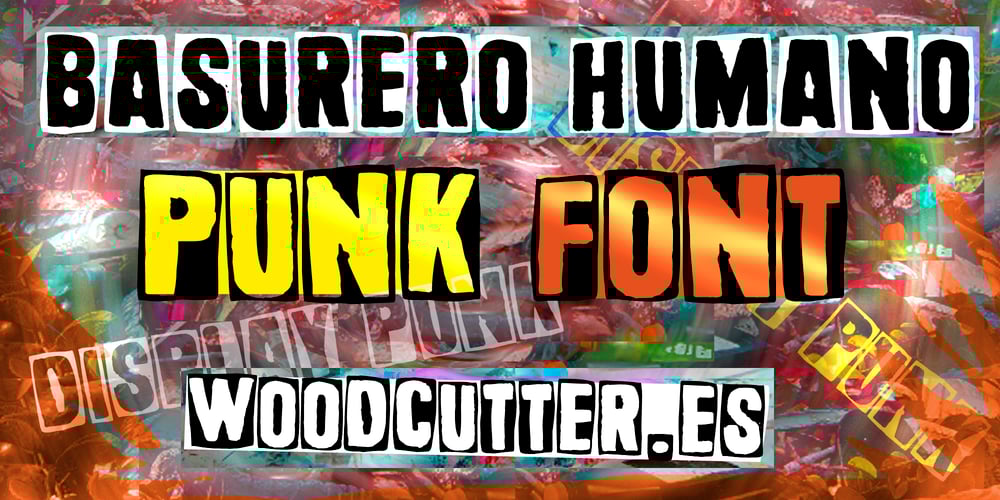
Basurero Humano
Basurero Humano font
Basurero Humano Font Family was designed by Jordi Manero and published by Woodcutter. Basurero Humano contains 1 styles and family package options. “Basurero Humano” is a bold and avant-garde typeface that defies conventions. Its irregular and captivating letters are framed within rectangles, creating a unique and eye-catching visual effect. With influences from the poster Punk style, this typeface stands out for its rebellious energy and its ability to break boundaries.”Basurero Humano” is ideal for projects that aim to convey a sense of rebellion, challenge, and originality. Whether it’s in posters, fashion designs, album covers, or urban art projects, this typeface becomes the focal point, capturing the viewer’s attention and leaving a lasting impression.With its striking style and deconstructed shapes, “Basurero Humano” becomes a versatile tool to communicate provocative messages and break away from conventional aesthetics. This typeface is perfect for those who want to push boundaries and make a bold statement in their designs.Discover the power of “Basurero Humano” and elevate your projects to a new level of originality and expression. Let this unique typeface be your ally in creating designs that stand out and leave a lasting impression in the minds of your audience.